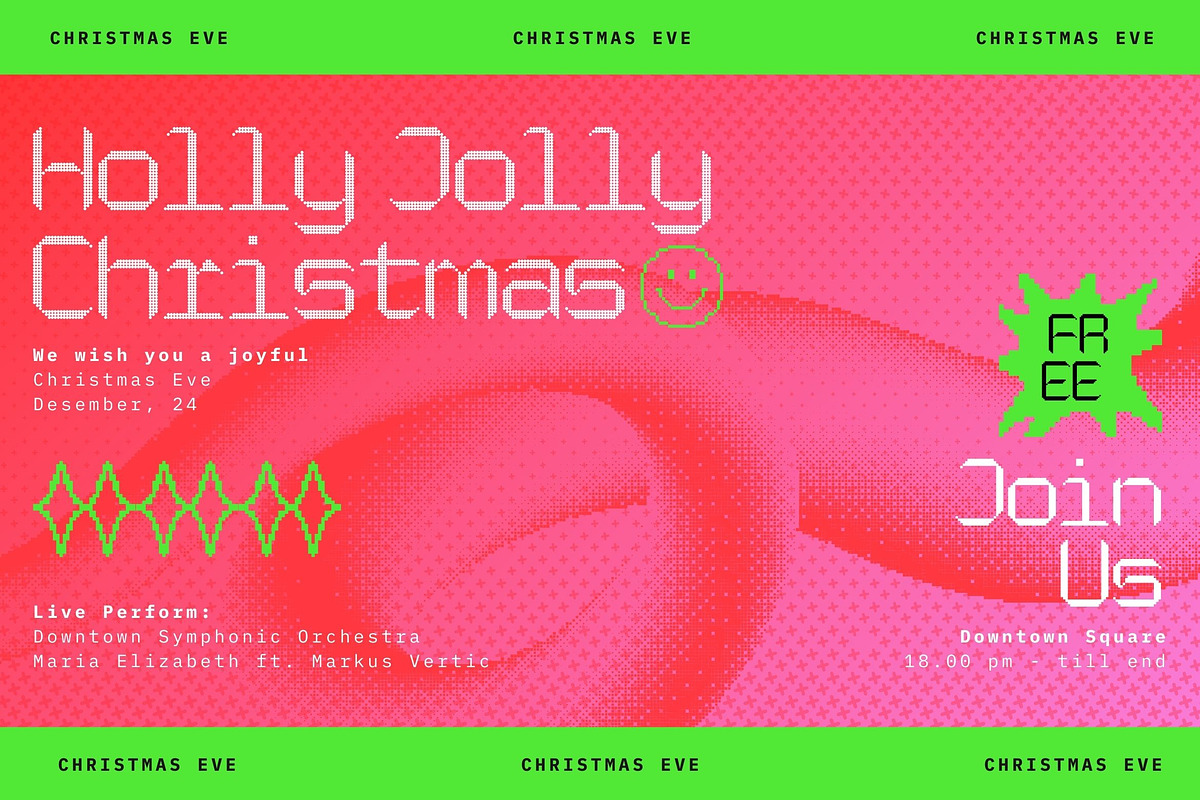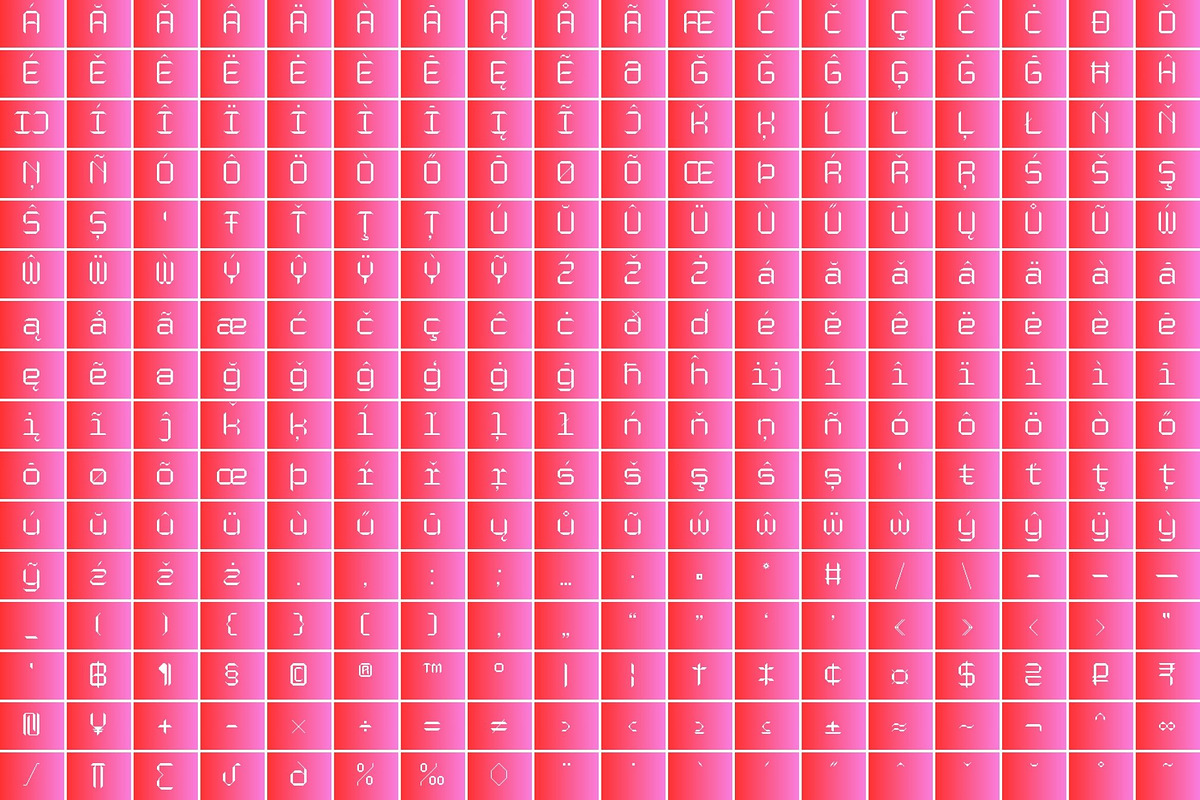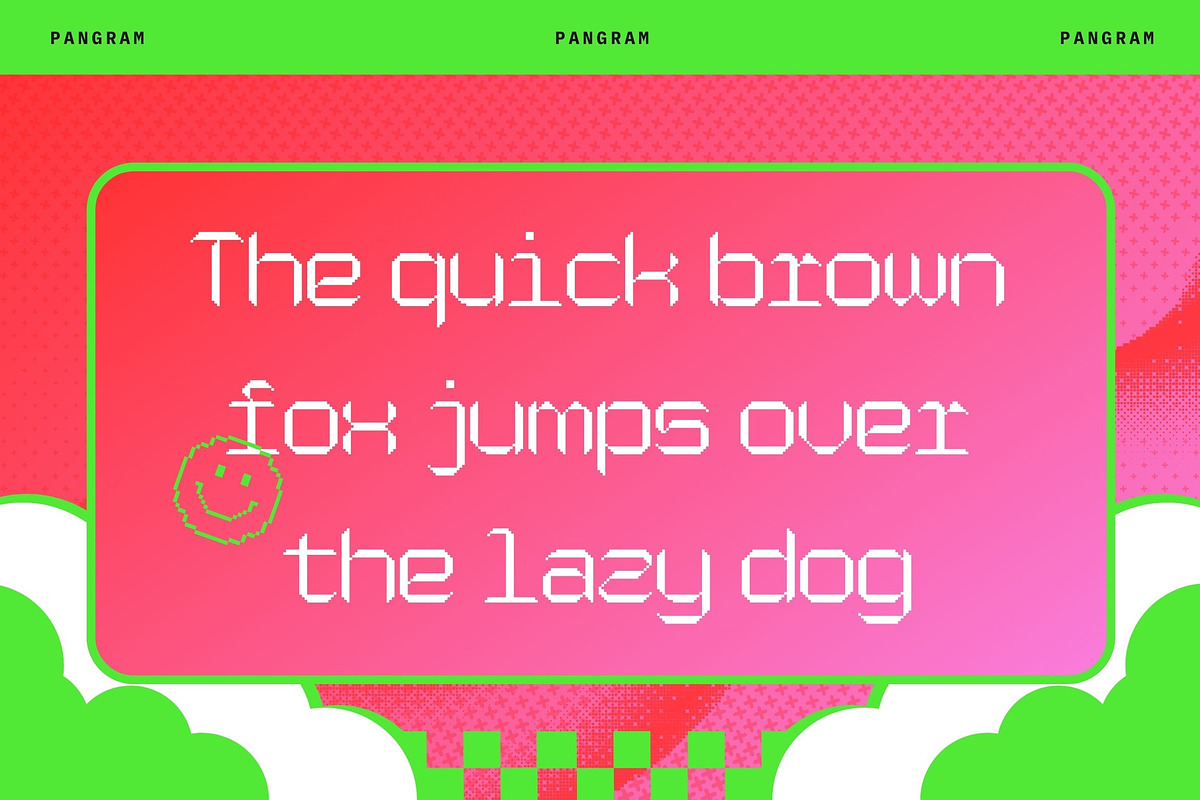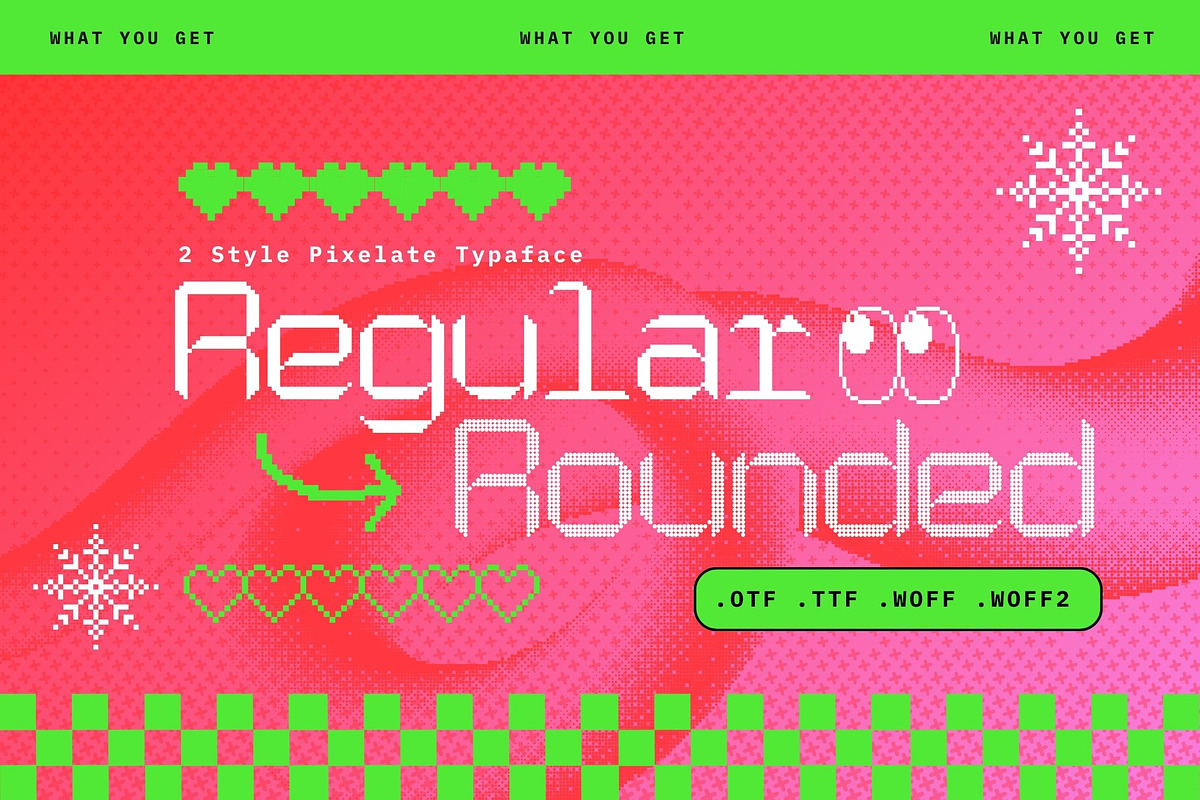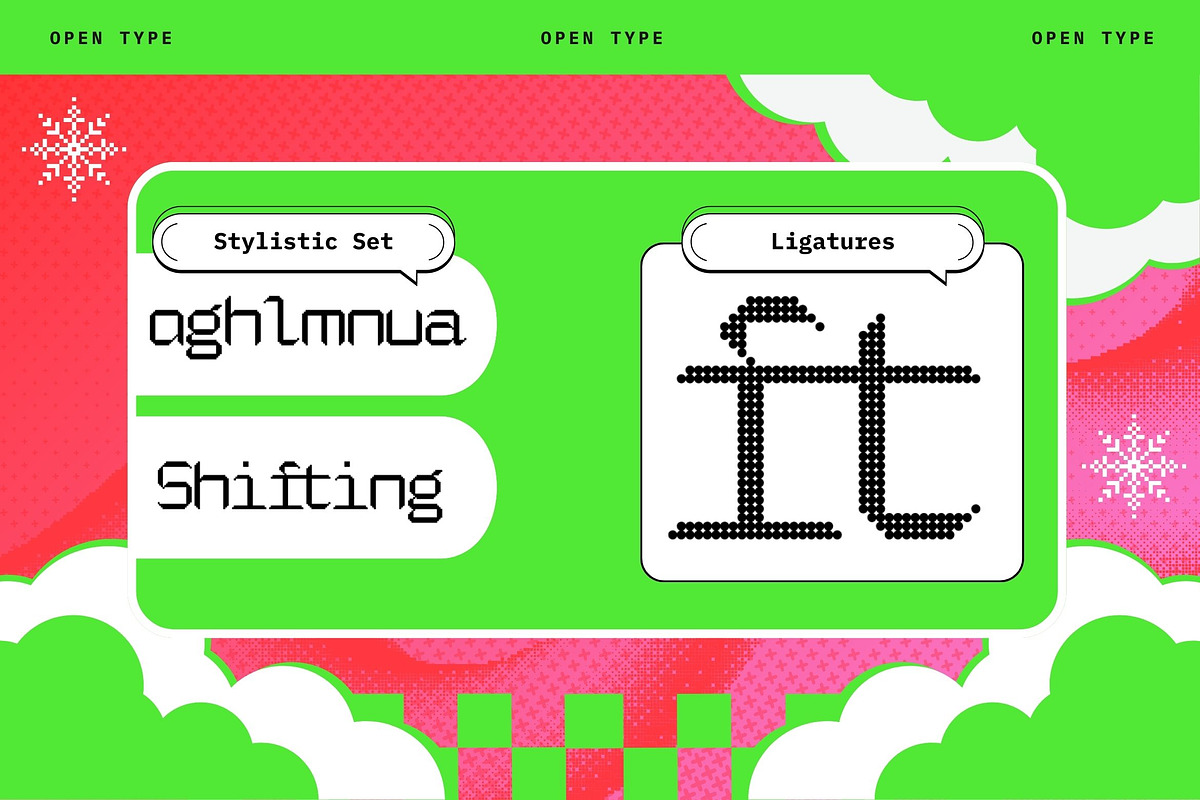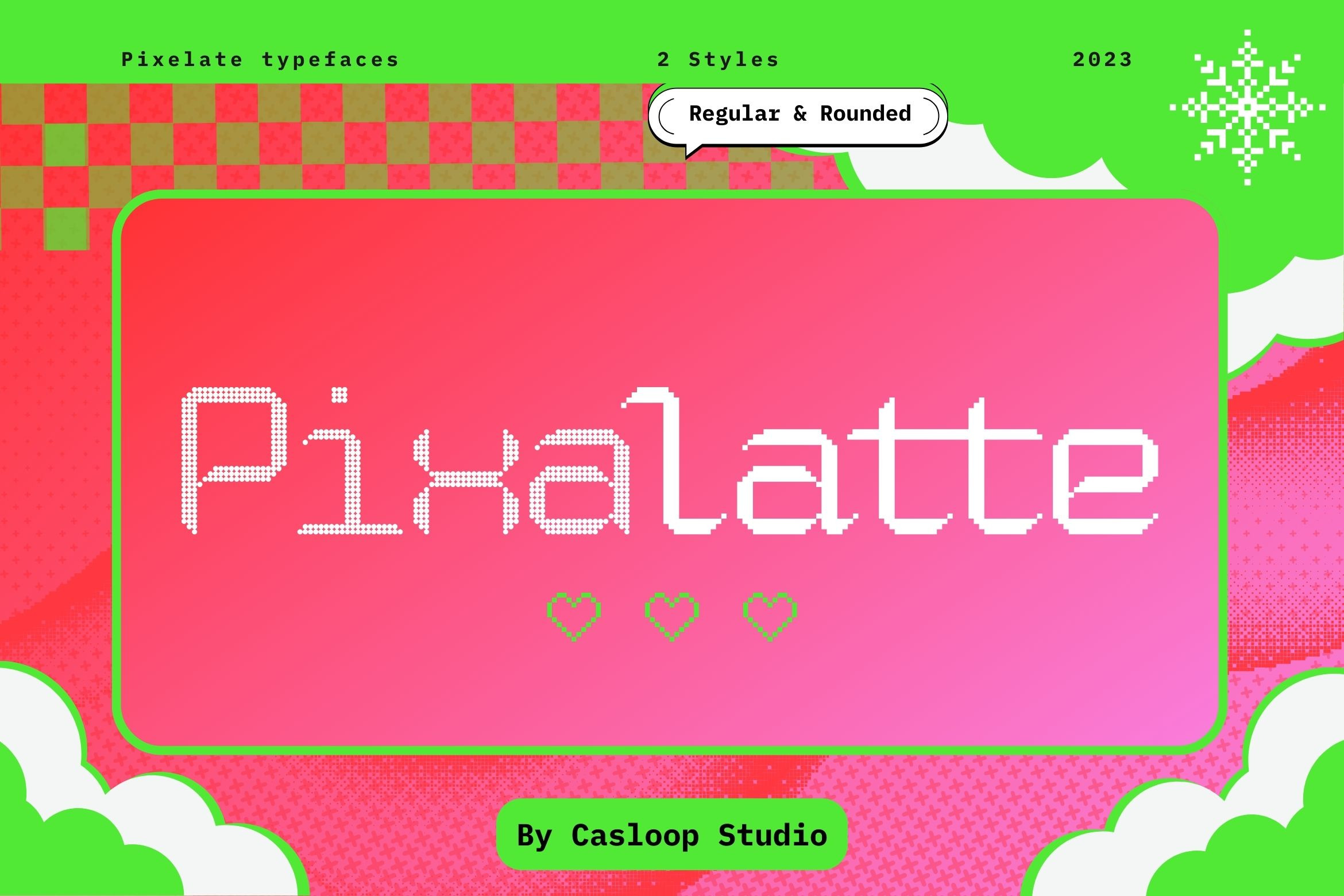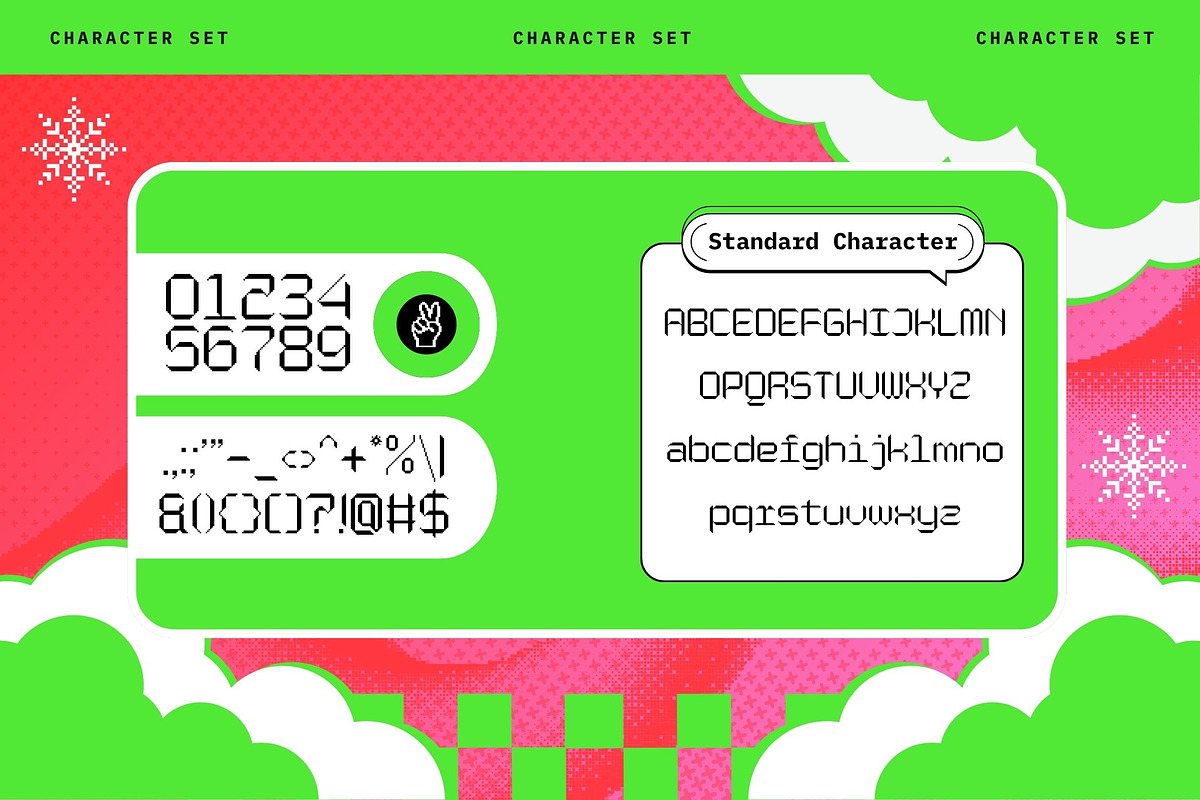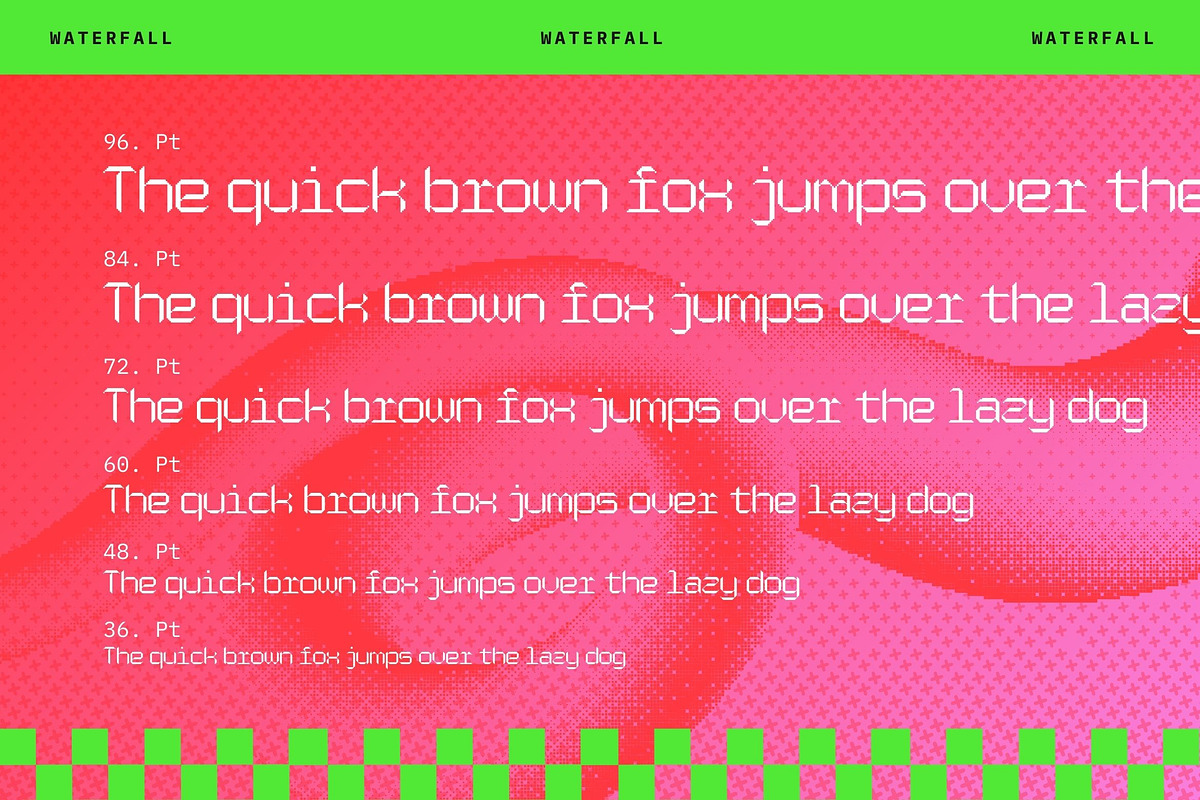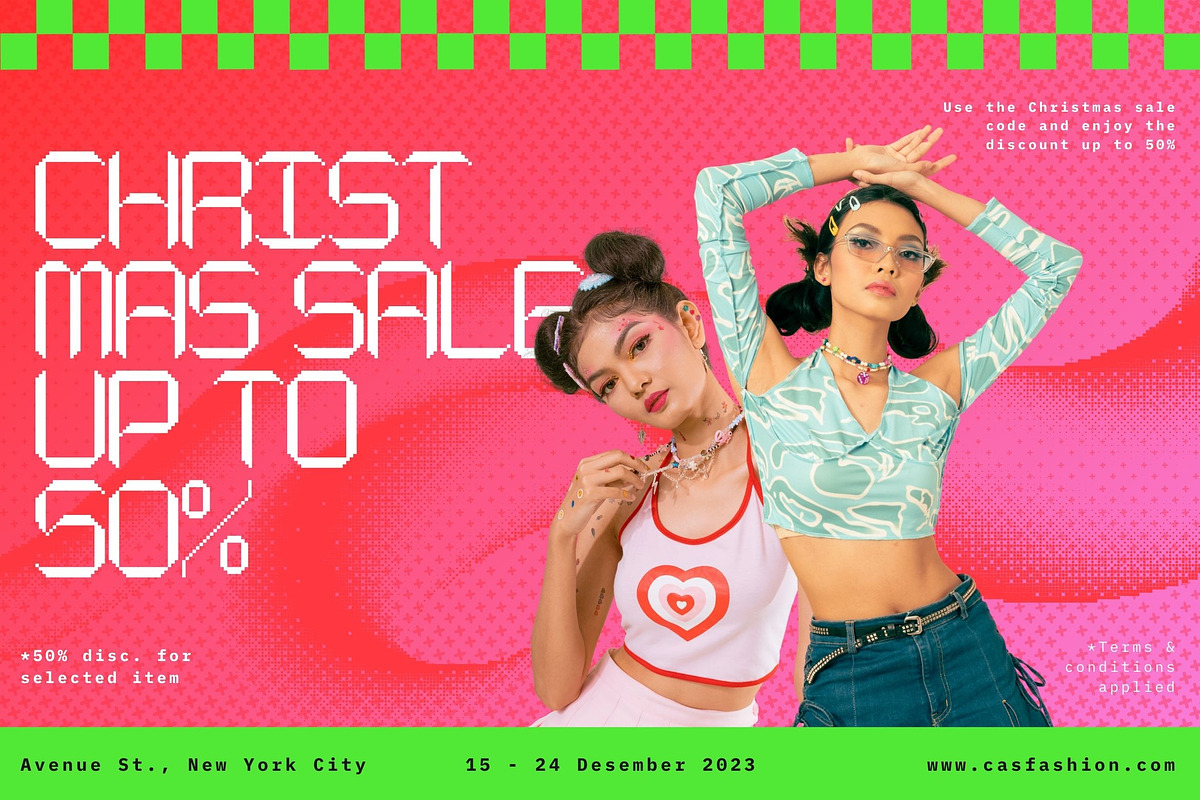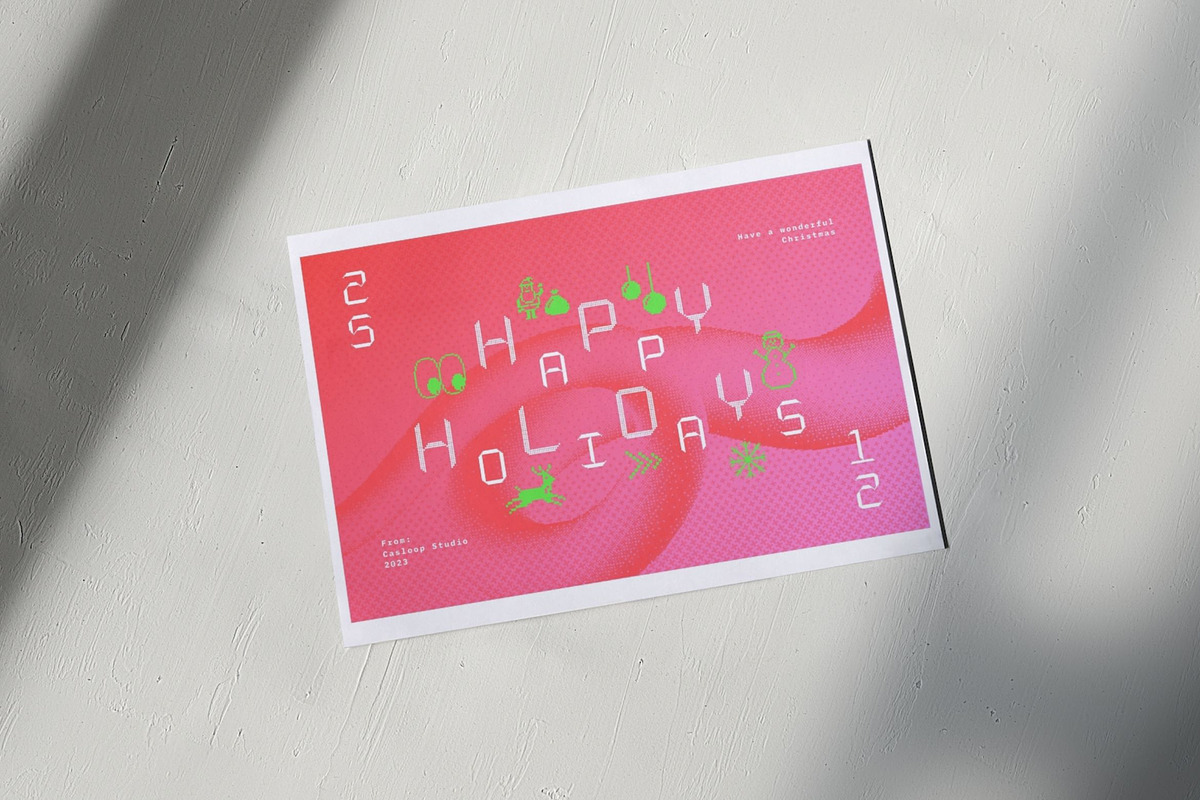
Cas Pixalatte Y2K Pixel 2 Fonts
Cas Pixalatte Typeface - Dive into Y2K Nostalgia with Pixel Perfection
Unleash the power of pixelated aesthetics with Cas Pixalatte Typeface, a cutting-edge font inspired by the iconic Y2K era. This unique typeface is a masterful blend of typography, graphic design, and pixel art, crafted to infuse your projects with a distinct visual style that's both nostalgic and contemporary.
Two Distinct Pixel Font Styles Tailor your designs with precision by choosing between the 'Regular' and 'Rounded' styles, allowing you to achieve the perfect balance between retro charm and modern aesthetics.
Multi-Language Support Cas Pixalatte goes beyond borders, offering comprehensive support for Latin-based languages across Western Europe, Central Europe, South Eastern Europe, South America, Oceania, and Esperanto.
Why Cas Pixalatte? Here's what sets it apart:
Elevate your design, embrace nostalgia, and make a lasting impression with Cas Pixalatte Typeface. Discover the possibilities, unlock creativity, and transform your projects into unforgettable visual experiences.